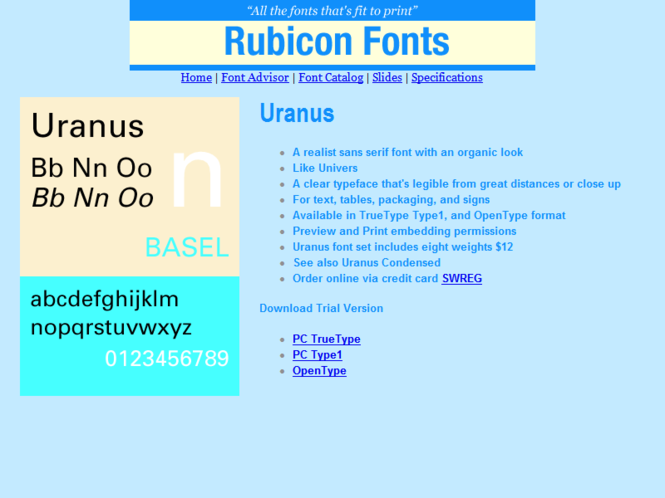
Realist sans serif font with an organic feel. Like Univers. A clear typeface that's legible from great distances or close up. An all purpose design, great for text, headlines, packaging, and signs. Use in any size. Accurate and hinted, matching font metrics, standard character set, kerning pairs. Professional print quality for inkjet, laser, typesetter to 3500 dpi.